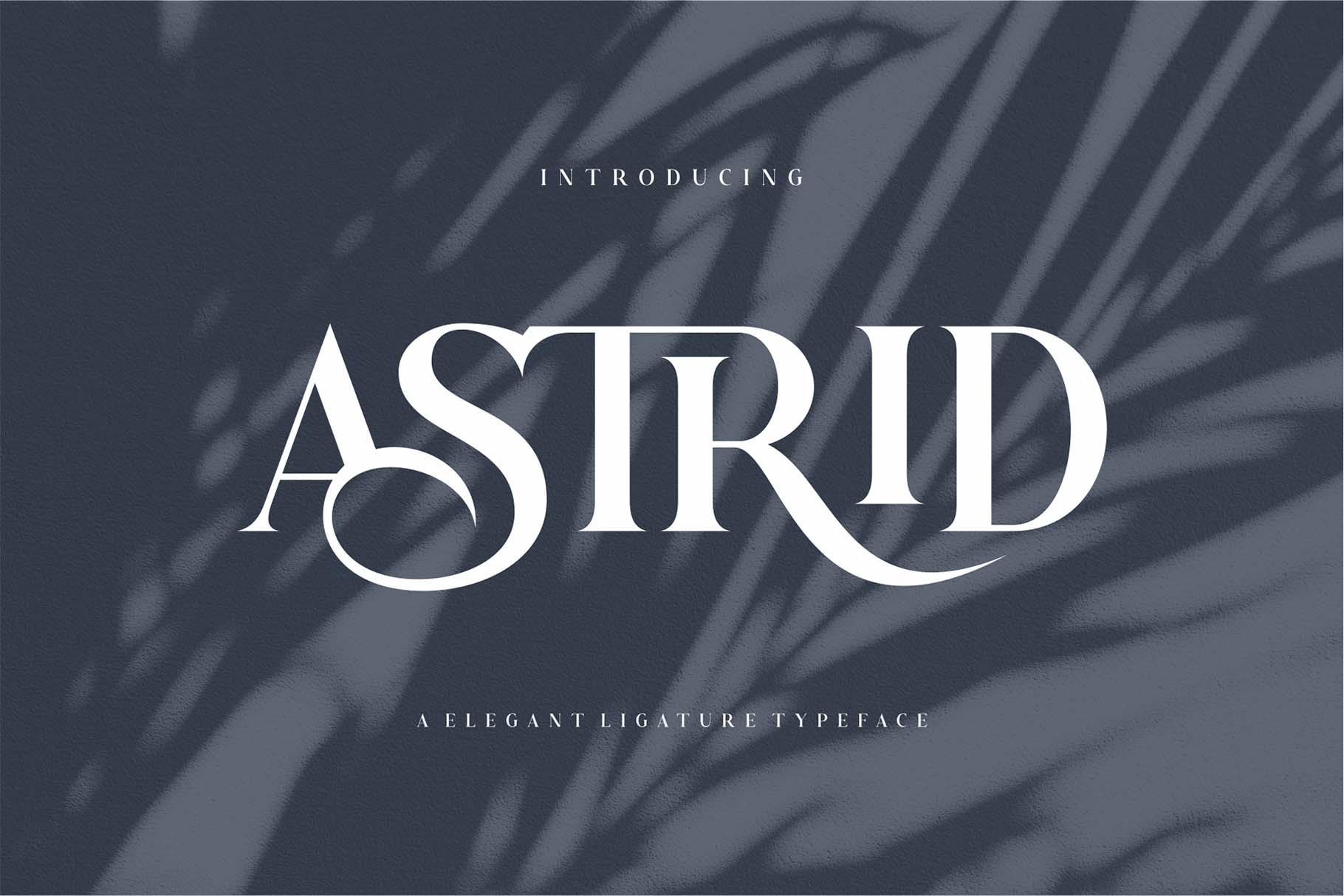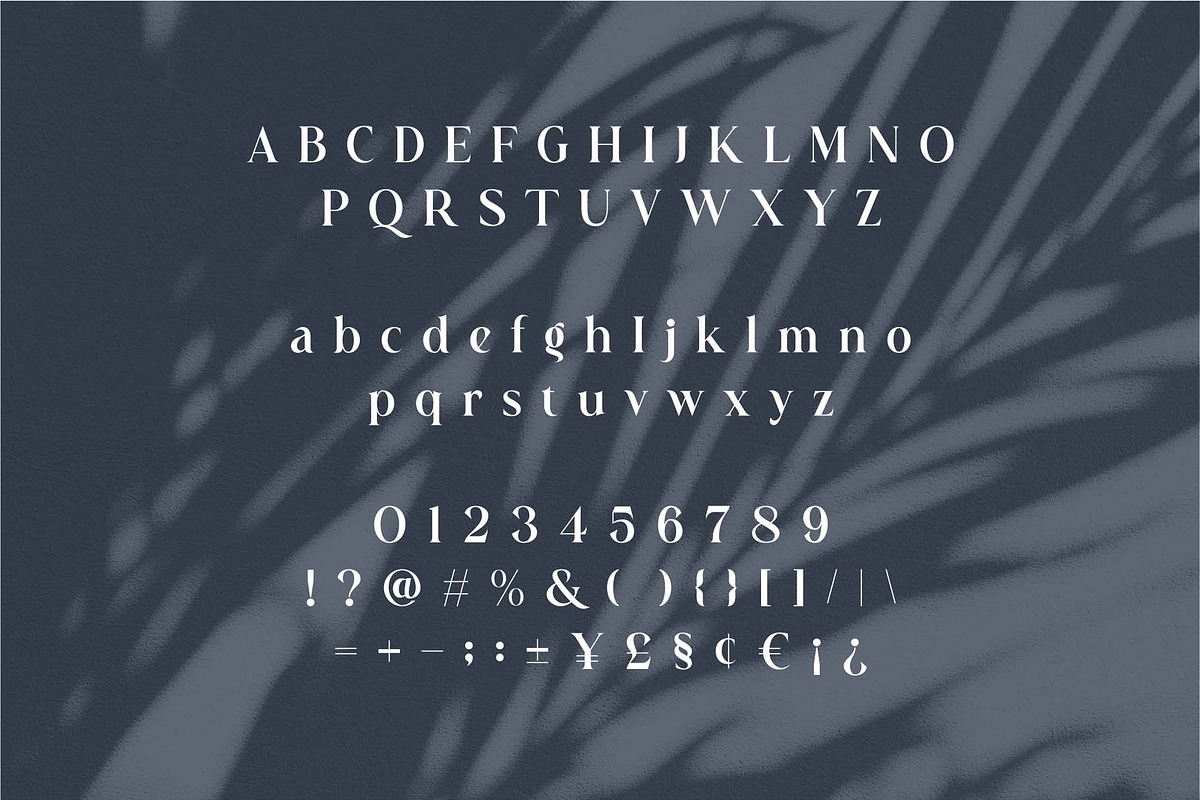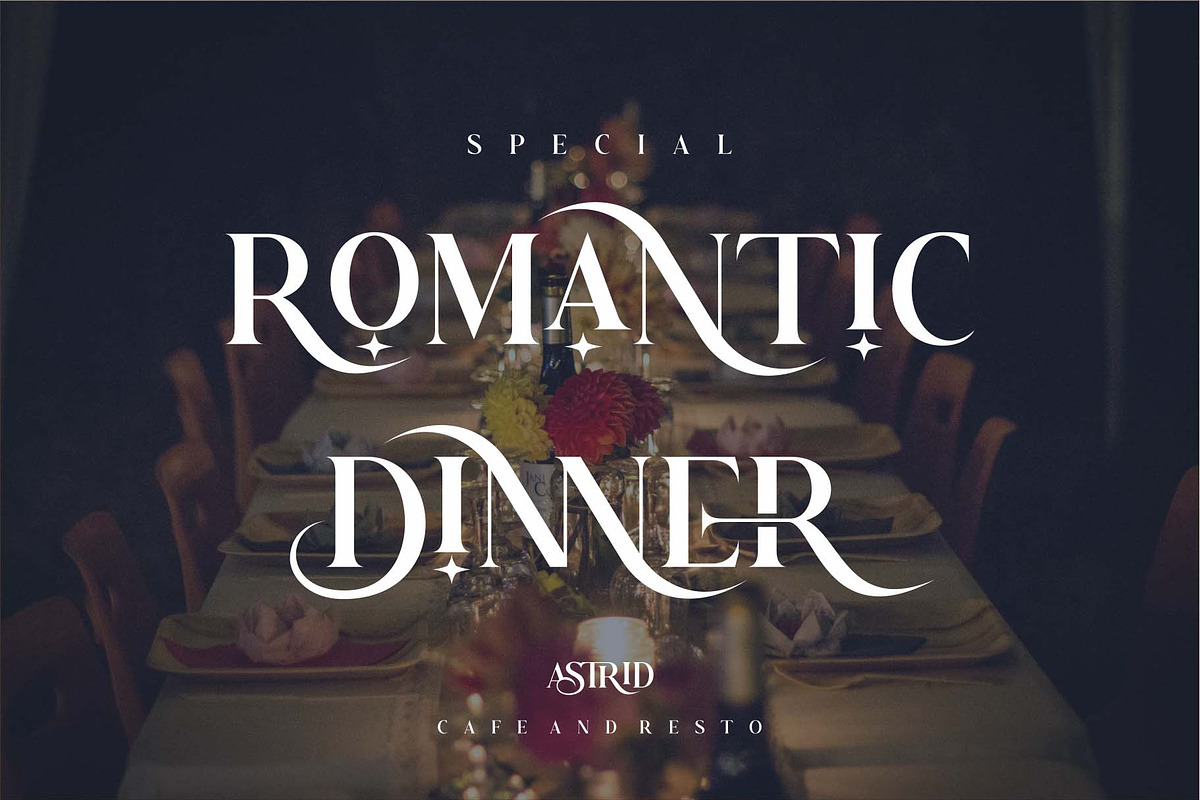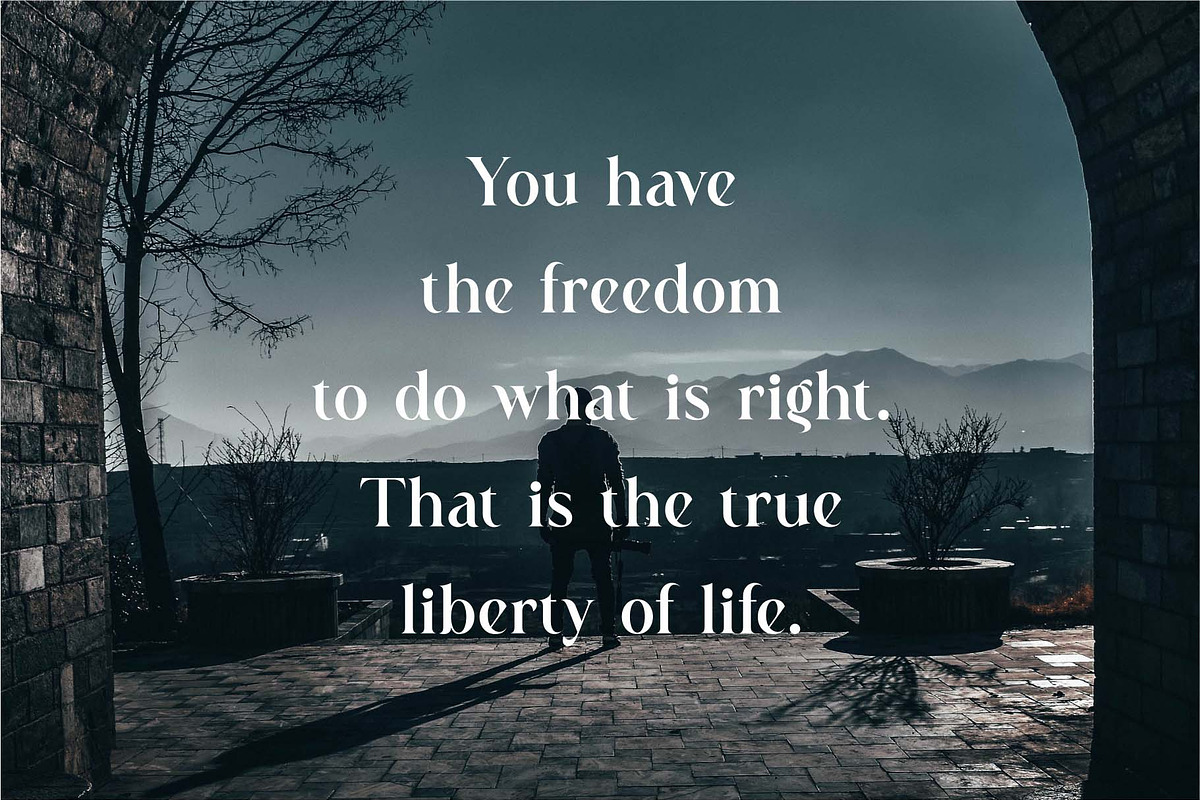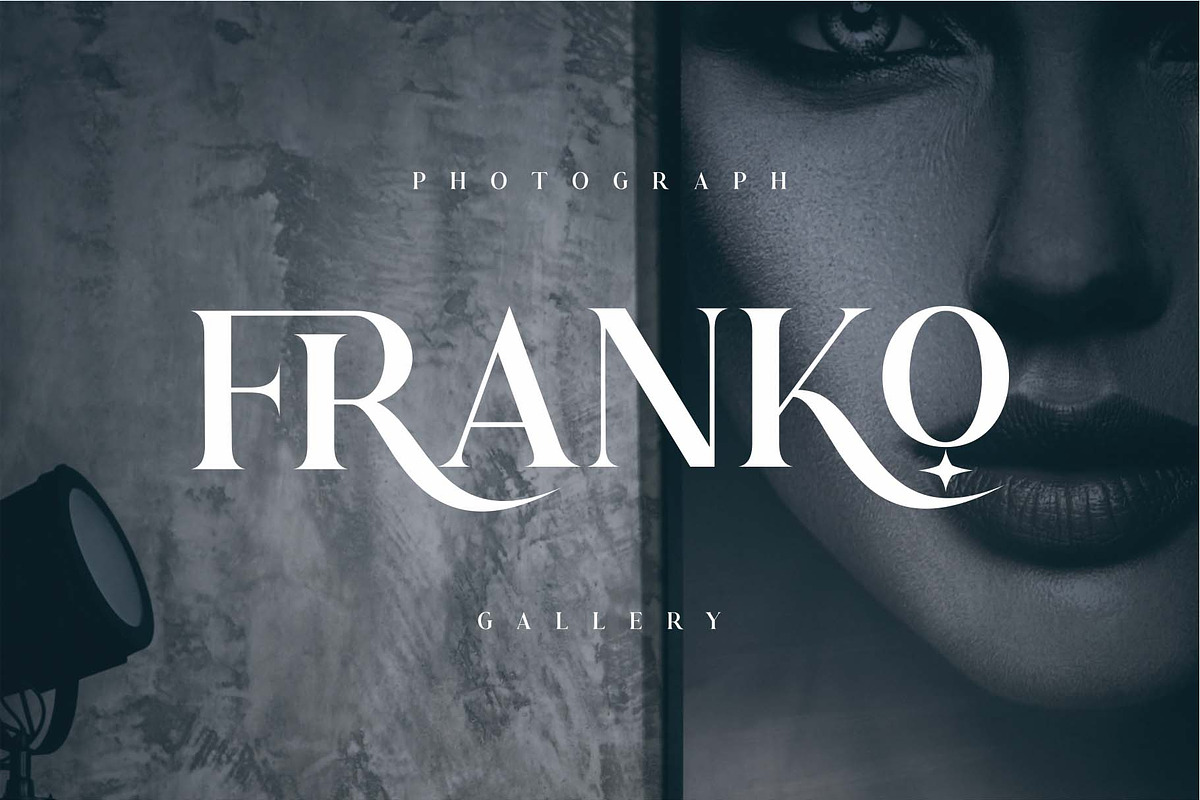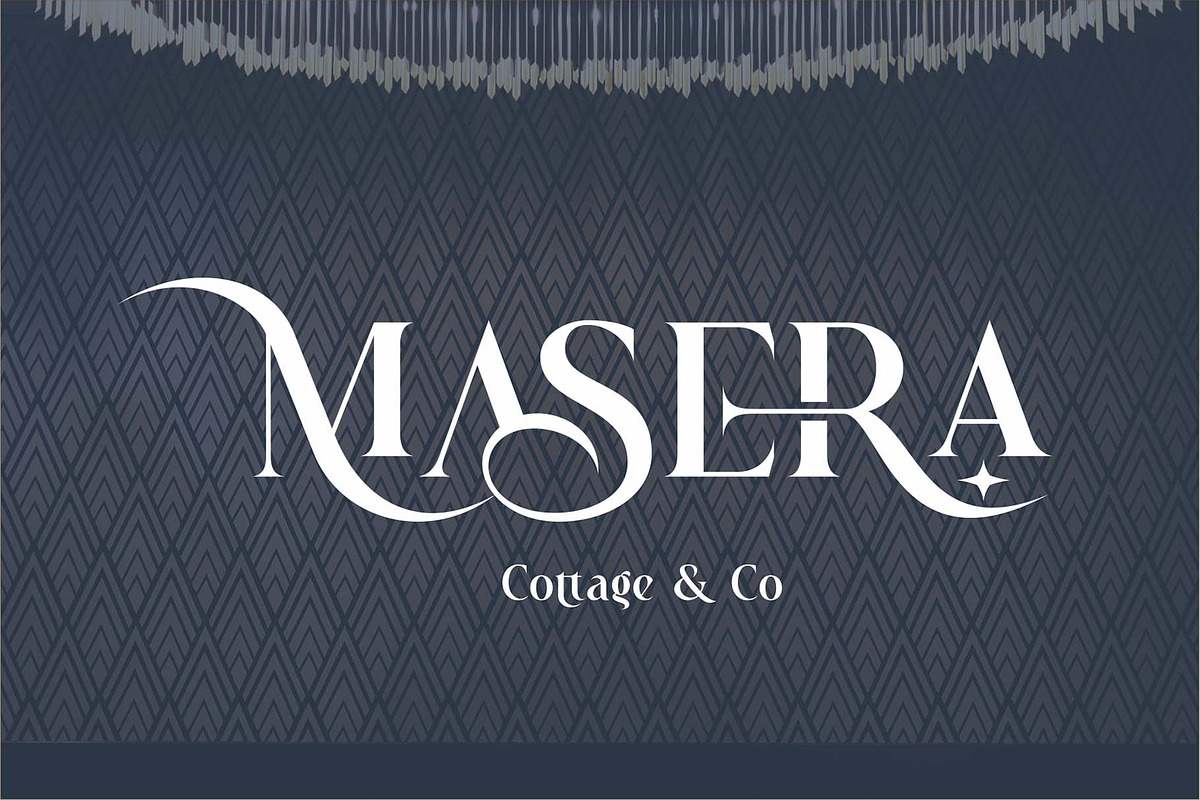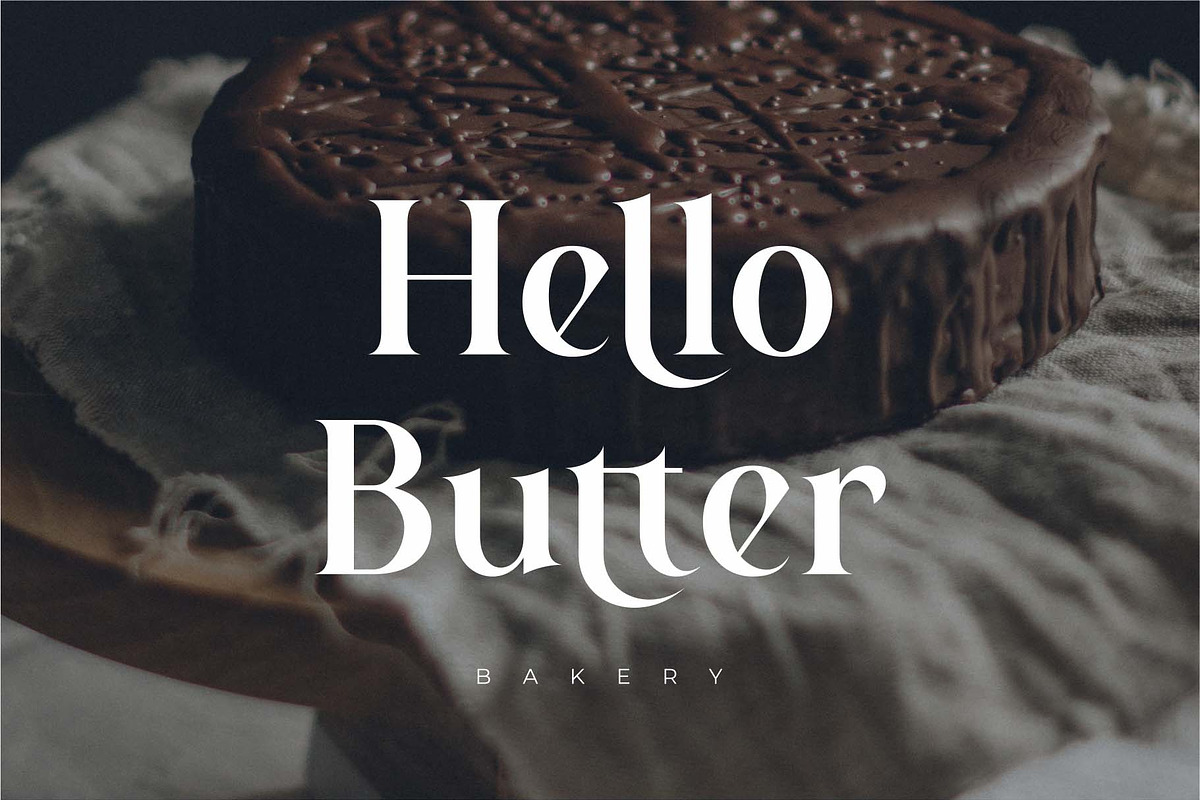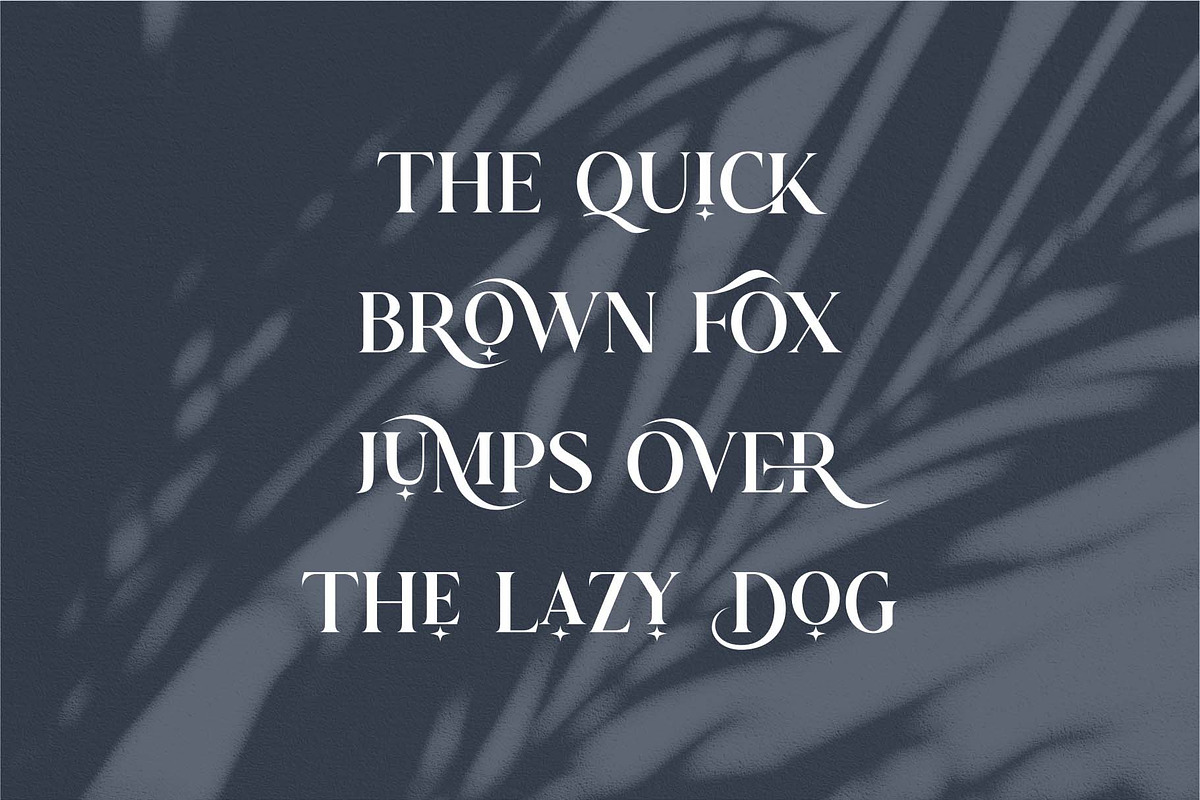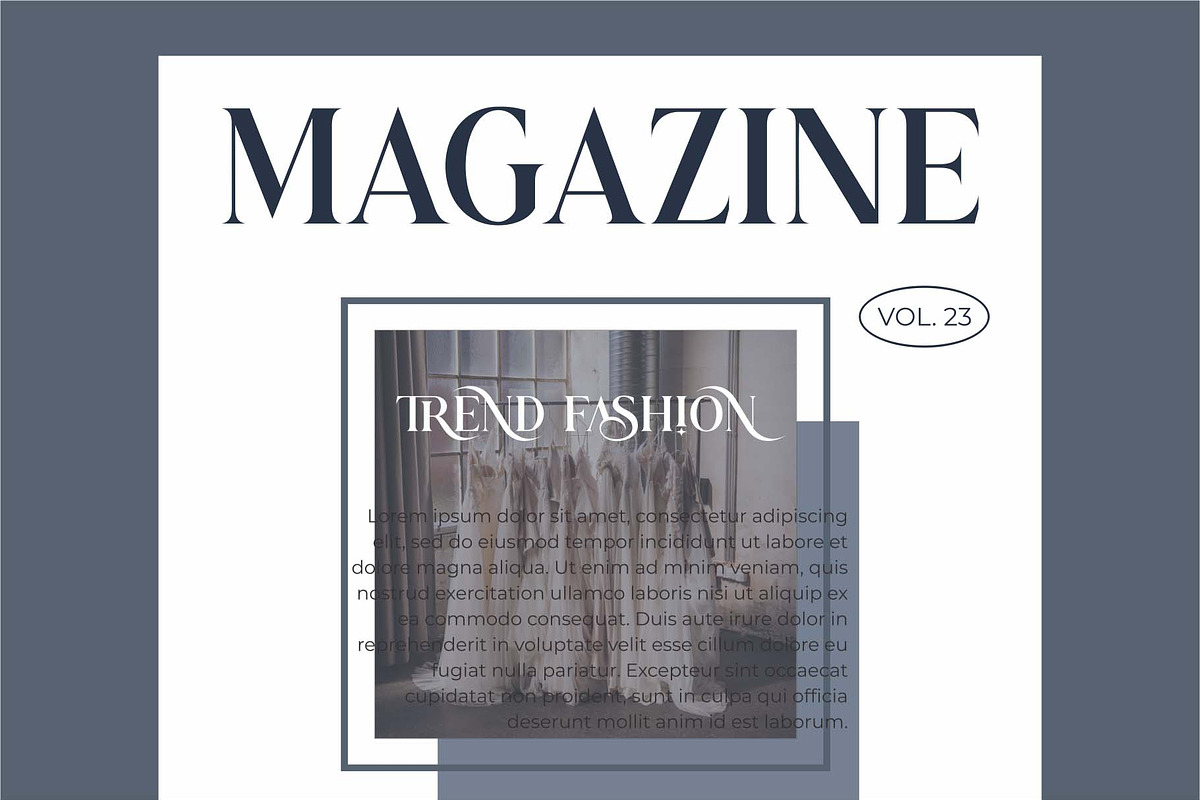
Astrid Elegant Ligature Typeface
Astrid Ligature Serif Typeface Font inspired by the famous minimalist logo perfect for the purposes of designing templates, brochures, videos, advertising branding, logos, invitation, layout design, elegant crafting, beauty design and more.